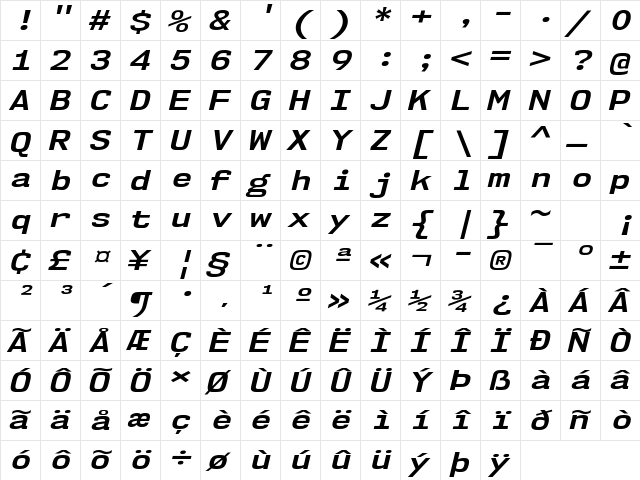
NK57 Monospace Expanded Bold Italic Font Preview
Design Context for NK57 Monospace Typeface
NK57 Monospace brings the precise, column-aligned rhythm of monospaced typography to designs that value technical clarity and systematic order. The slanted form adds forward momentum and visual energy. The heavy weight commands attention and anchors typographic hierarchies.
Pro Tip: Pair NK57 Monospace with a proportional sans for UI contexts where code-style labels and regular body copy need to coexist.